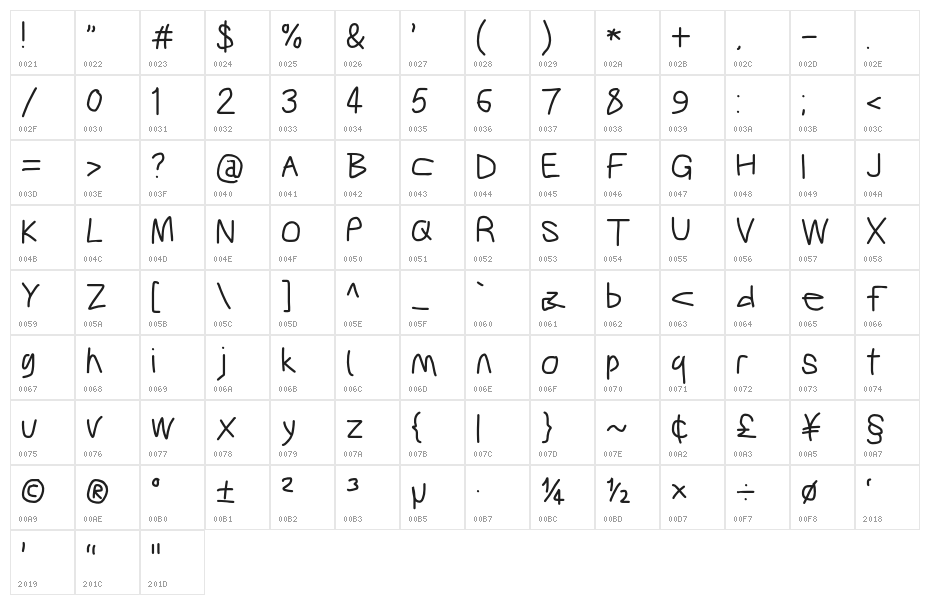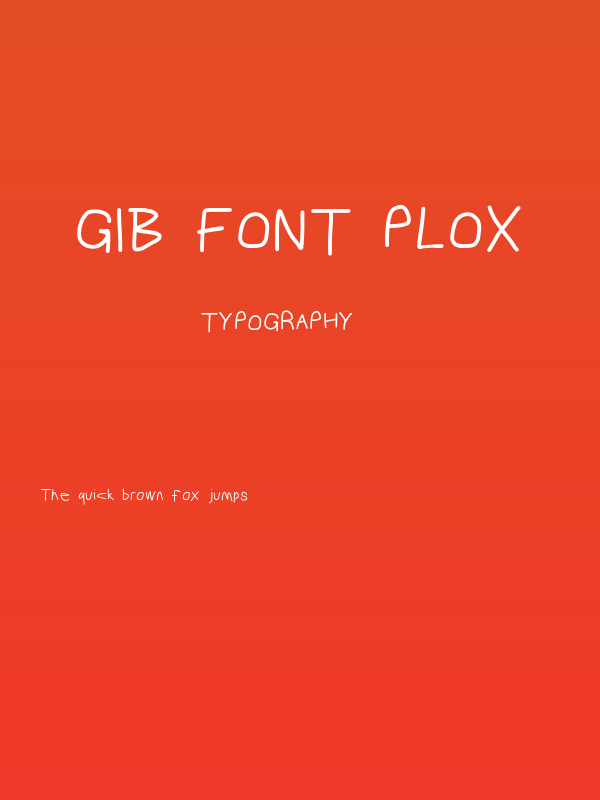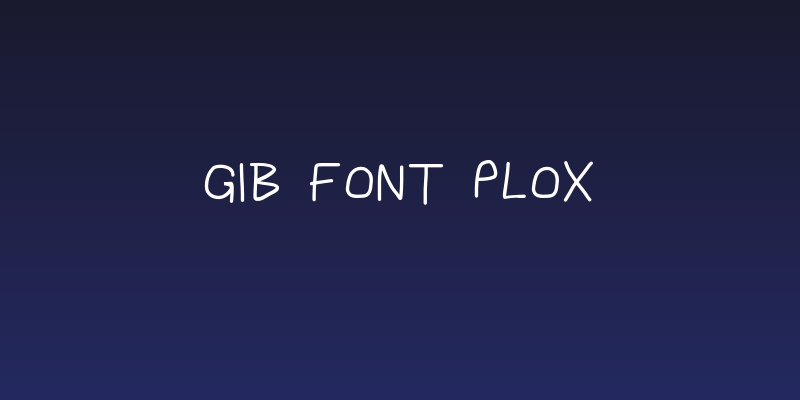
Gib Font Plox Font
Gib Font Plox Description
This font features a playful and informal handwritten style, characterized by its irregular strokes and casual appearance. The letters are slightly tilted, giving a dynamic and lively feel. The uppercase and lowercase letters maintain a consistent flow, while the numbers and special characters complement the overall aesthetic. The strokes are uniform in thickness, contributing to a cohesive look. This font exudes a friendly and approachable vibe, making it suitable for projects that require a personal touch.
| Proposed Projects | Ideal for children's books, greeting cards, casual branding, and social media graphics. |